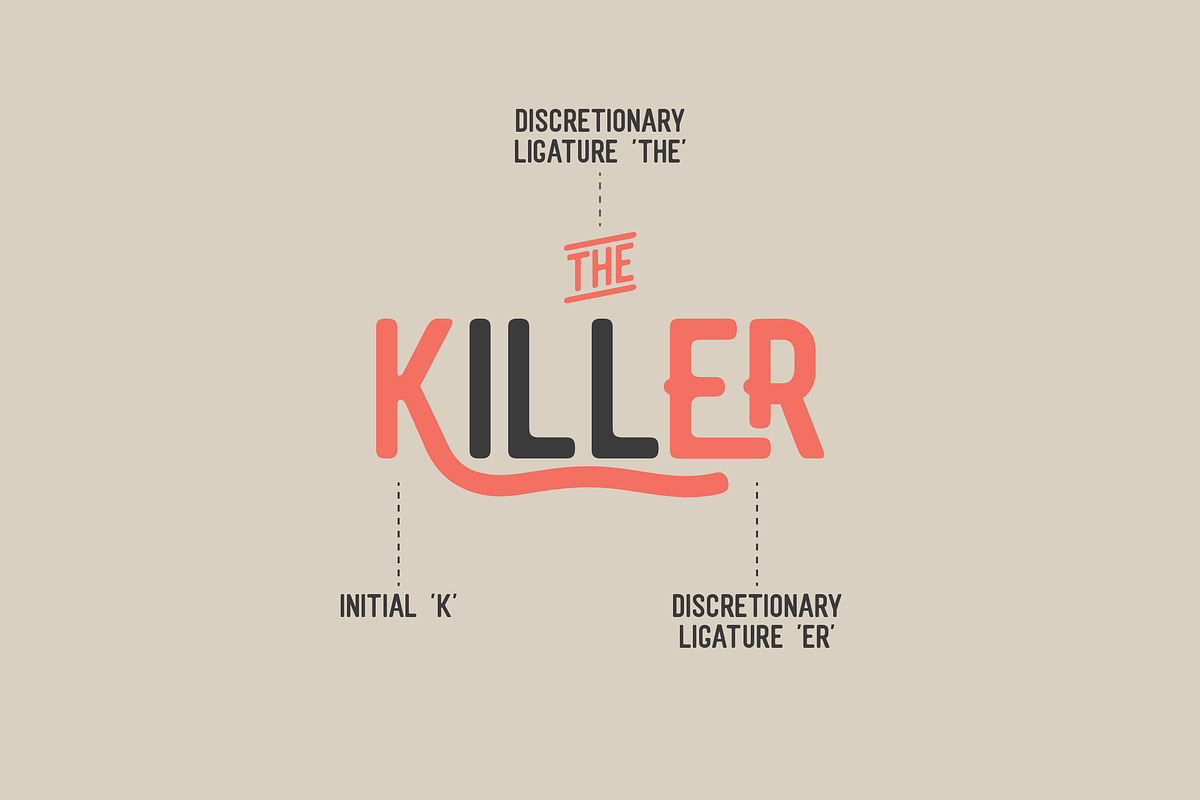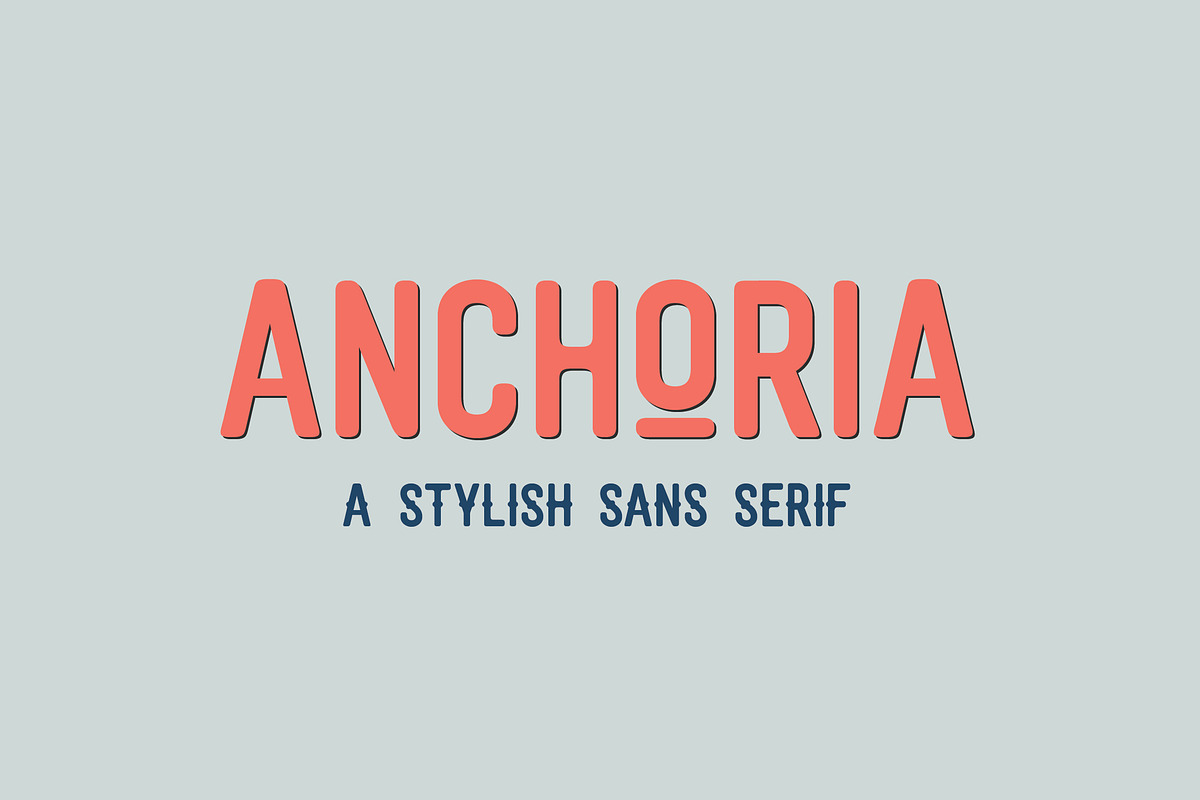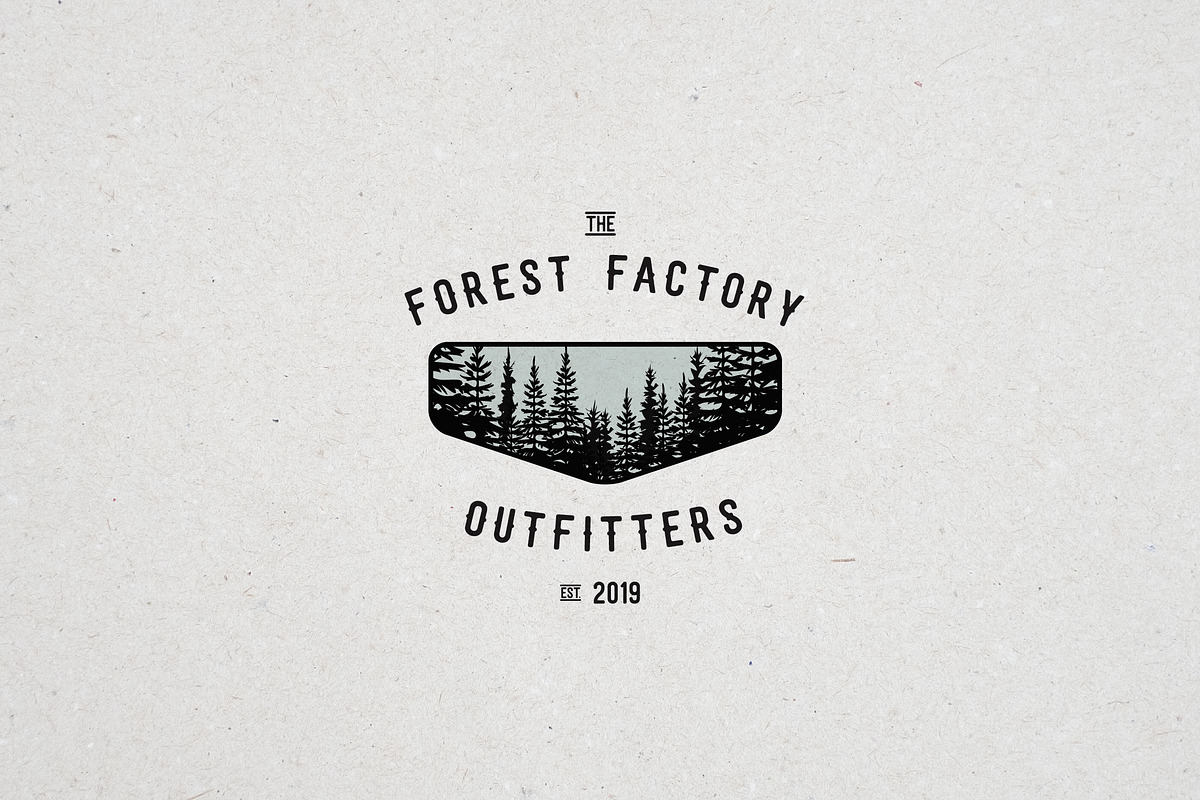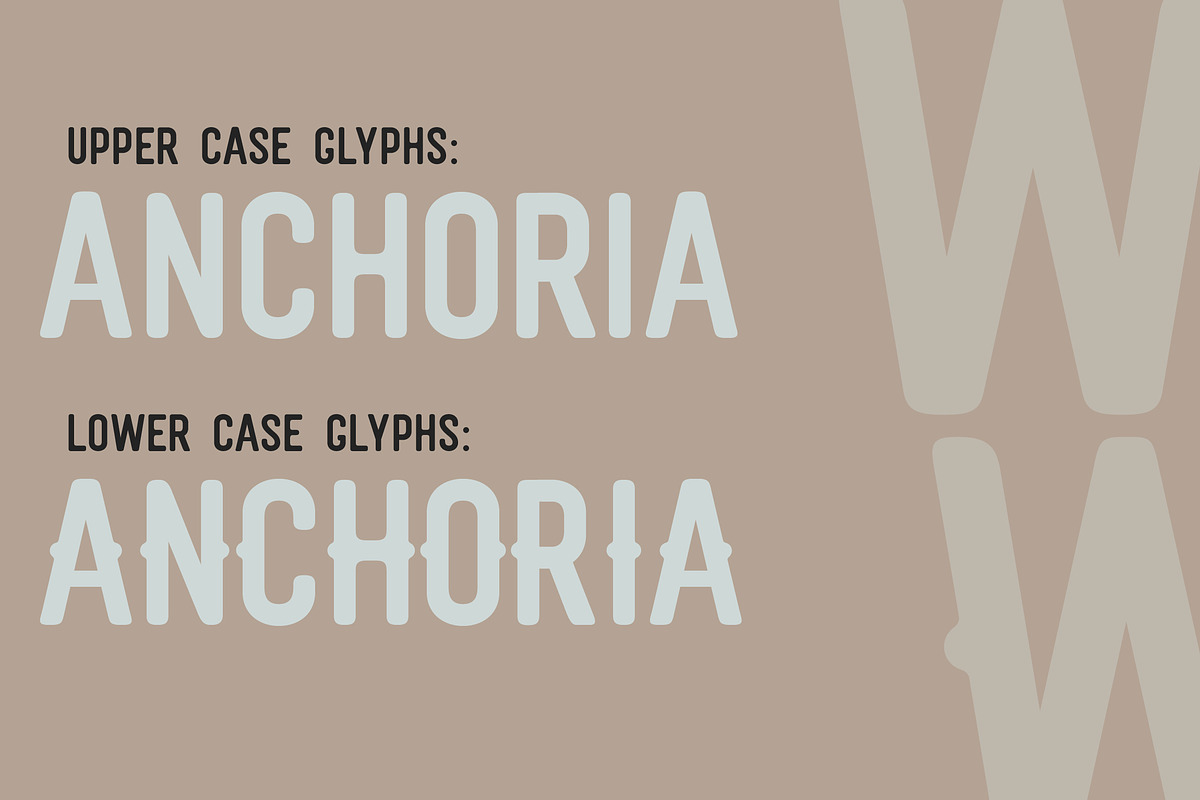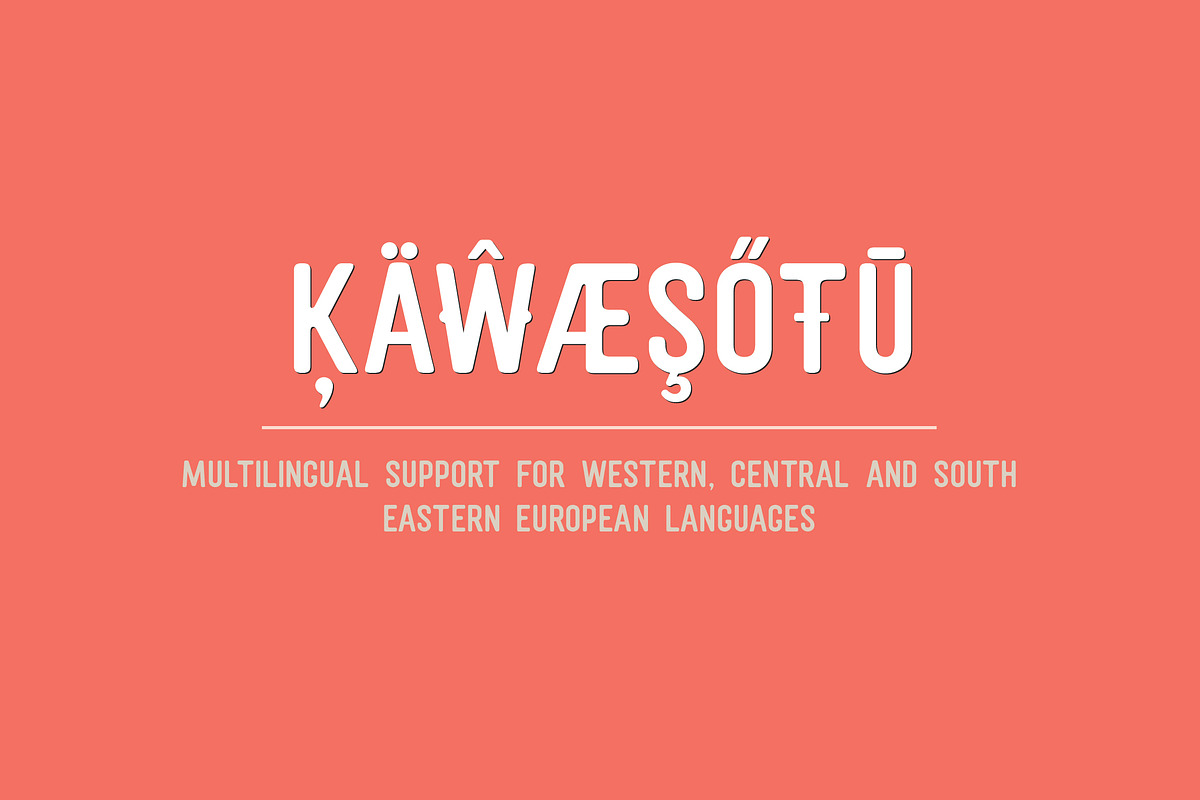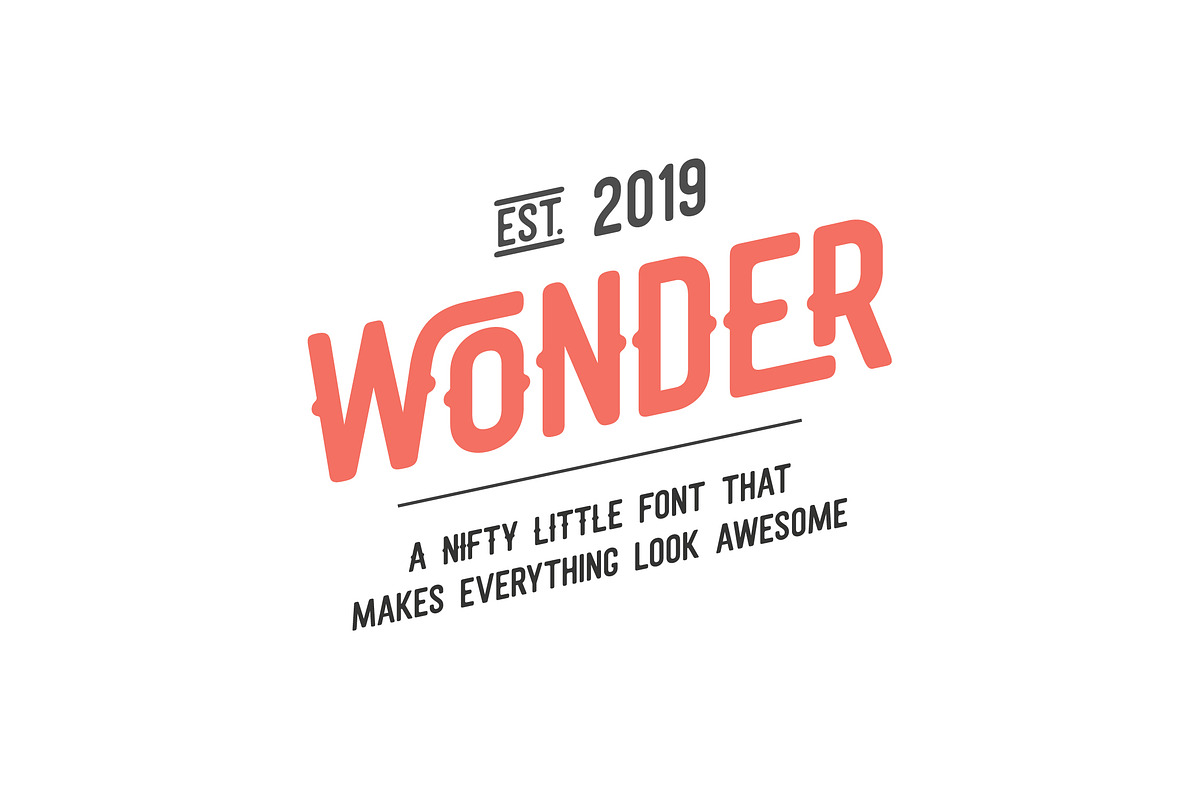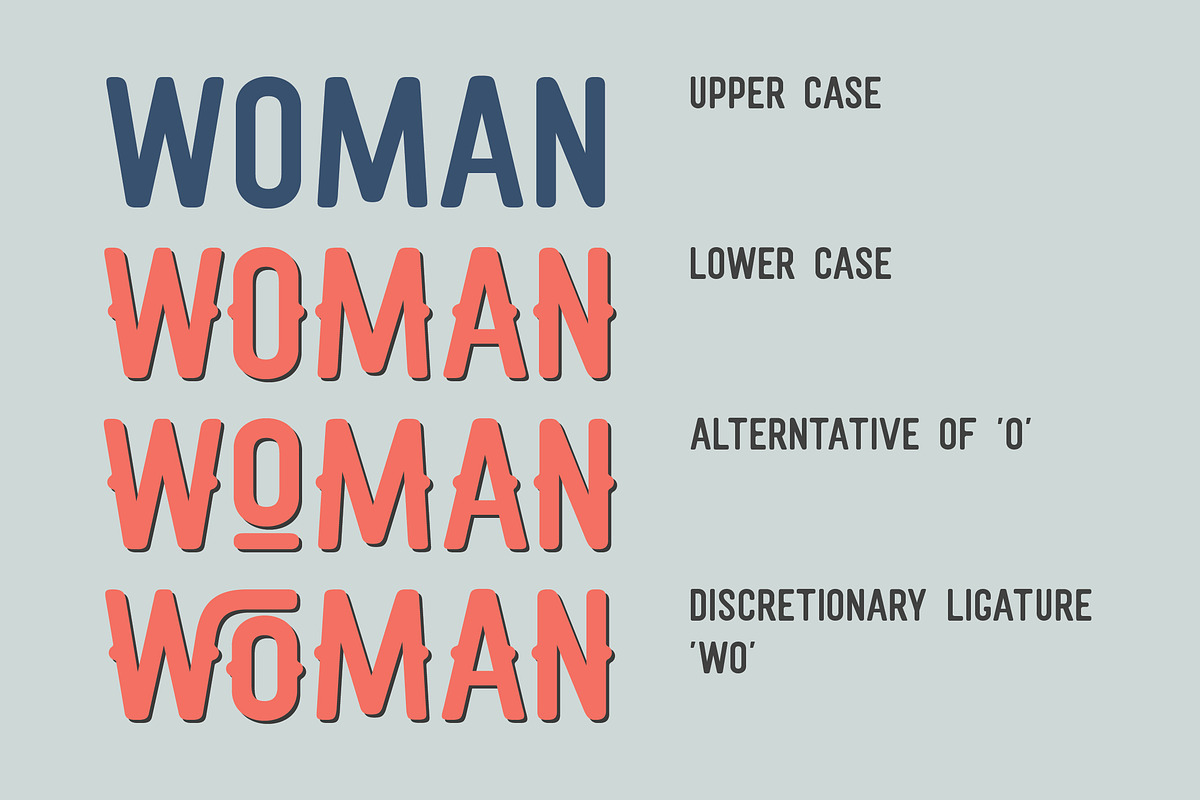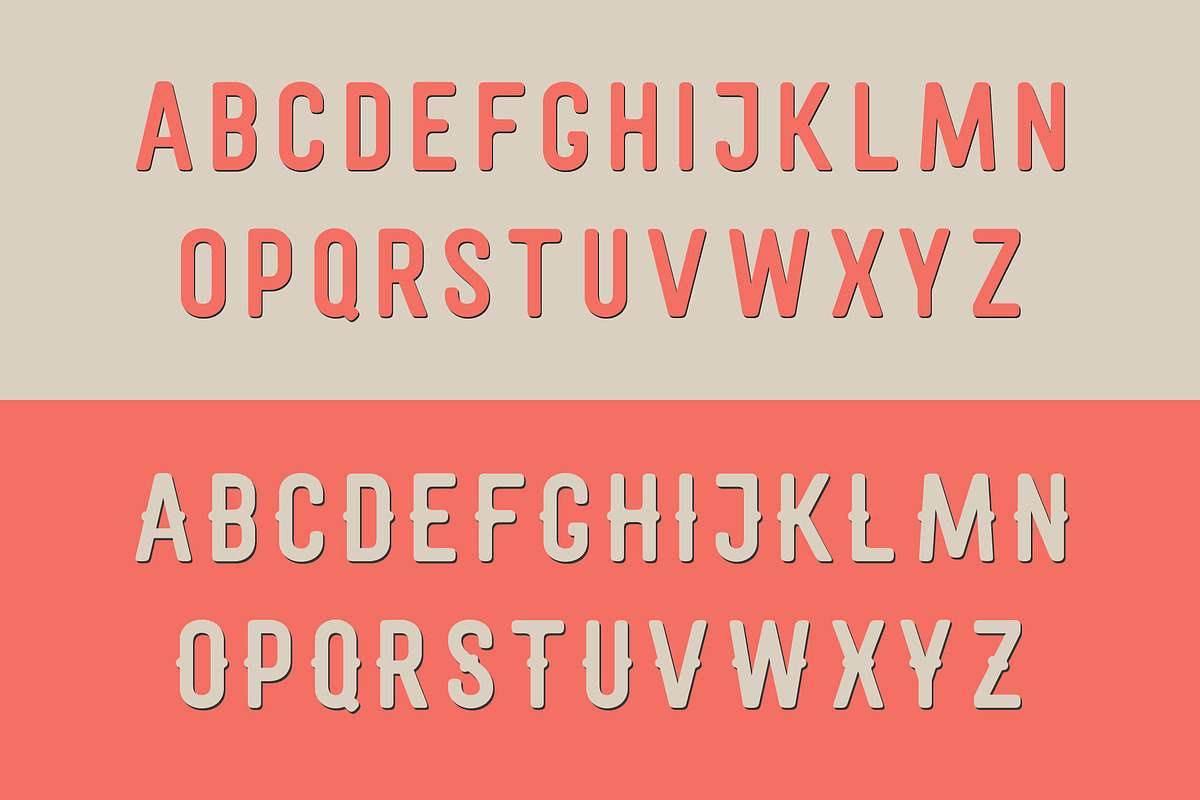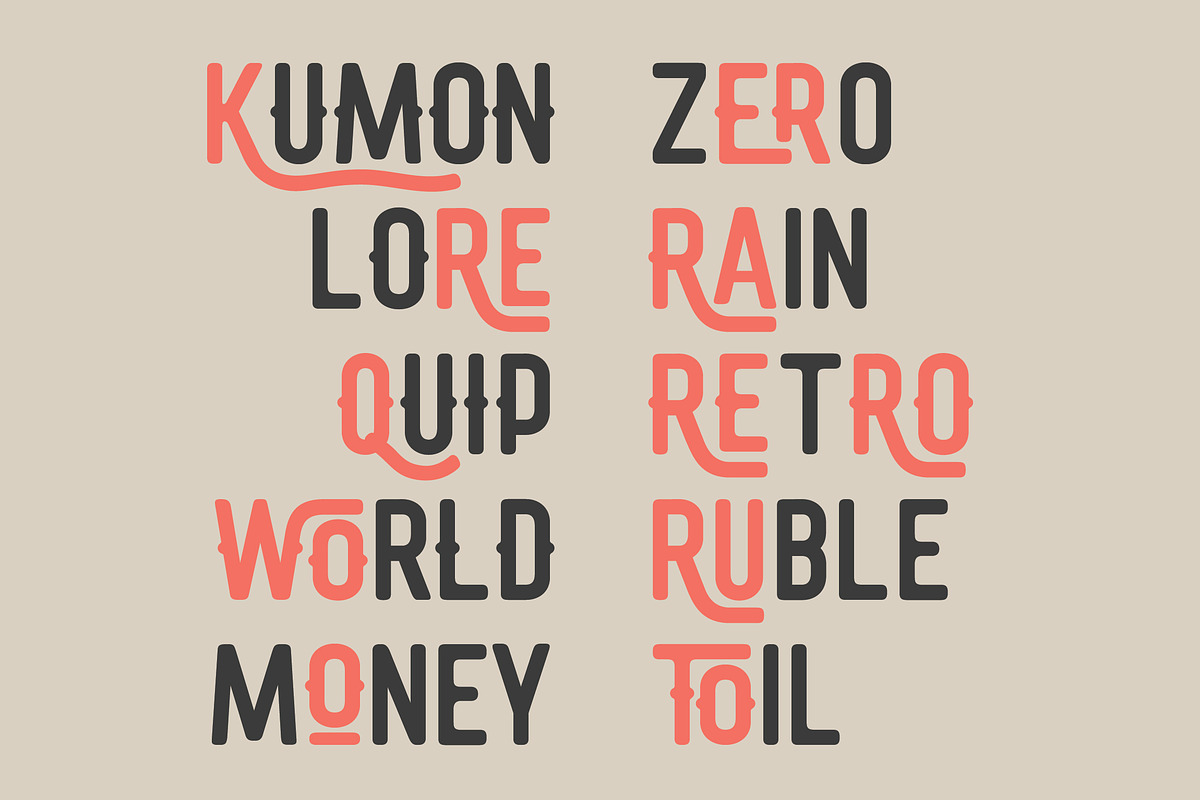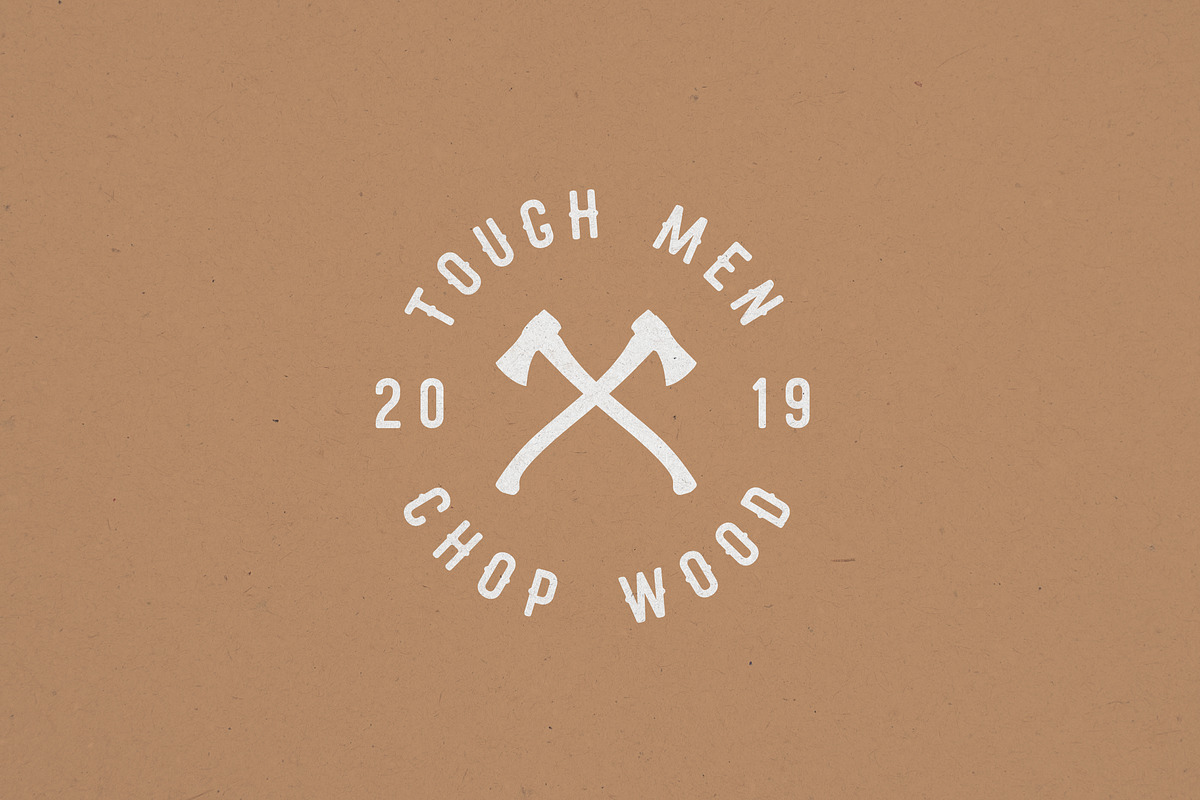
ANCHORIA — Stylish Sans Serif Font
Whether it's a logo you're designing or a brand identity, our latest Anchoria is perfect for you. With two sets of letters (dot-less and side-dotted), it's a perfect match for all sorts of needs. Check out the pictures for logo inspiration. Also included are a dozen or so ligatures and stylistic alternatives that make Anchoria even more flexible—and more beautiful.
• Uppercase (dot-less)
• Lowercase (side-dotted)
• Numerals
• Ligatures (and a whole bunch too! and we're going to bring more in further updates)
• Multilingual Support (˘`´ˆ¨ etc.) for both Caps and Lowercase